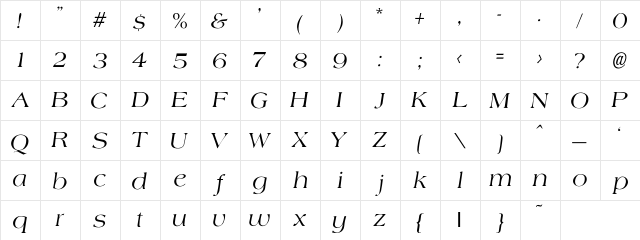
Agate-Normal-It Regular
Design Context for Agate-Normal-It Typeface
Agate-Normal-It takes a measured approach to typography — its balanced proportions and neutral character make it a reliable workhorse for both digital and print work.